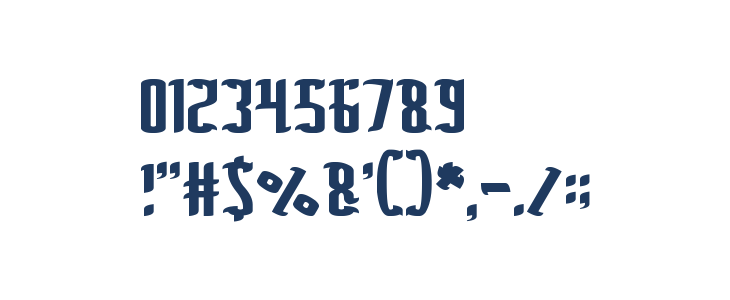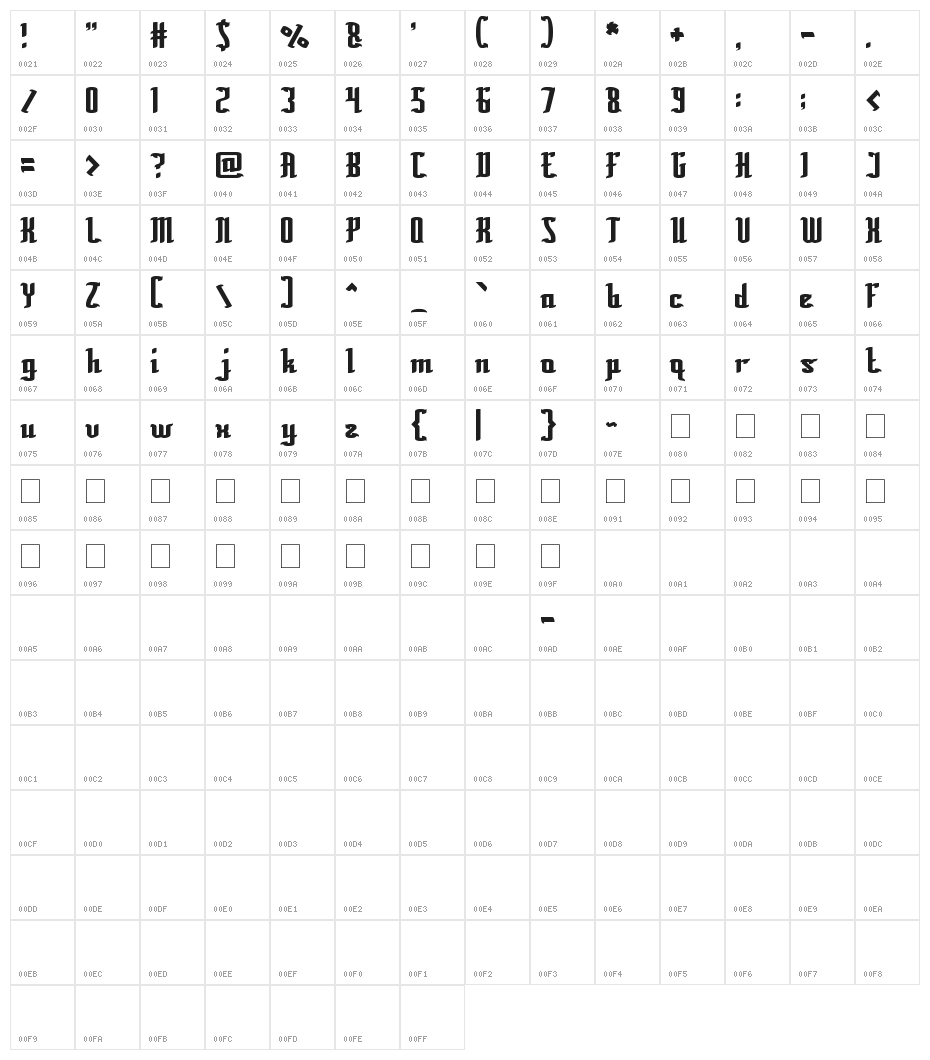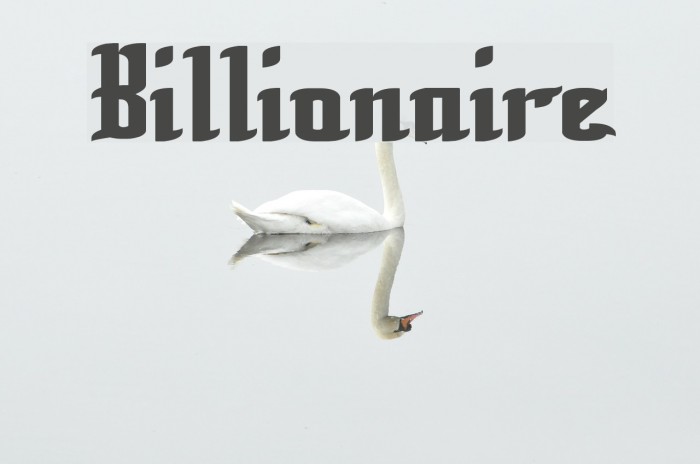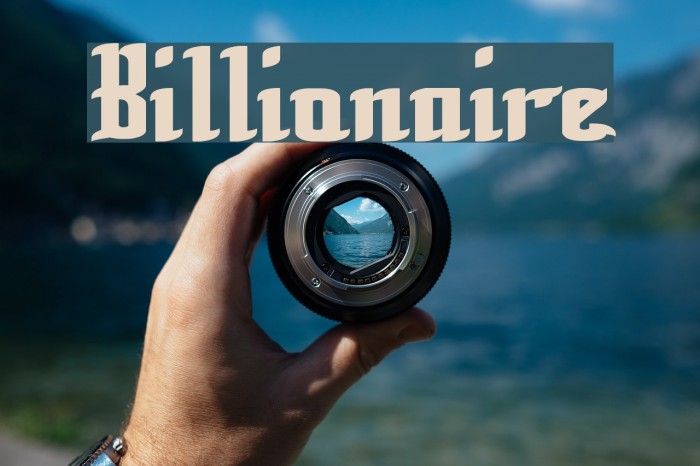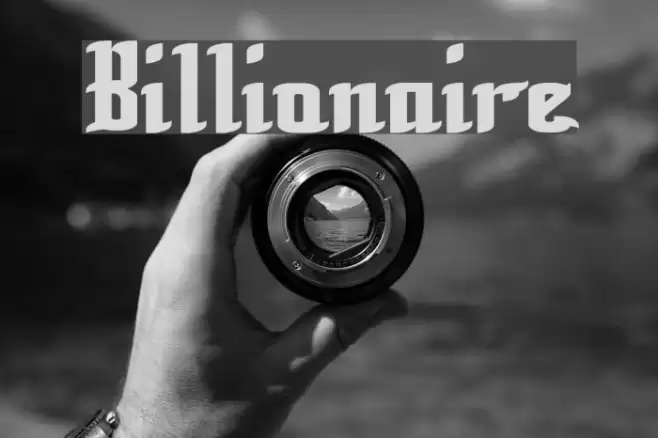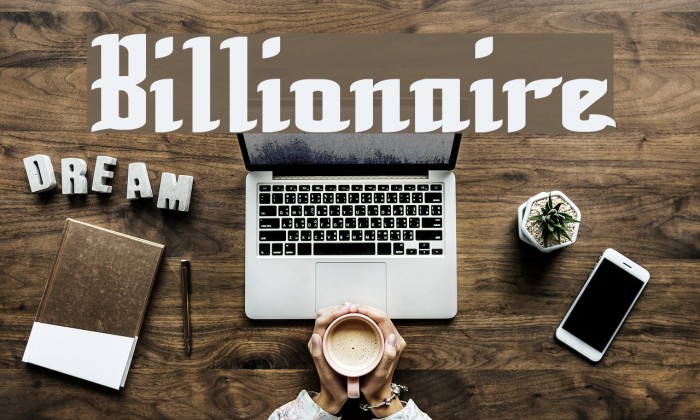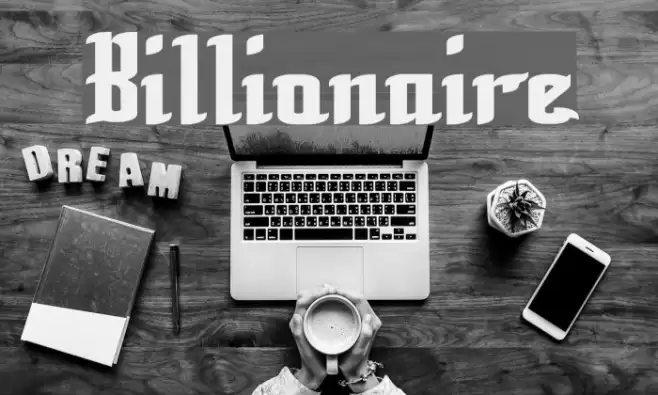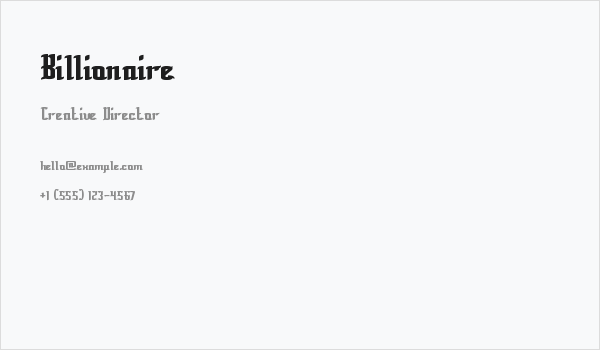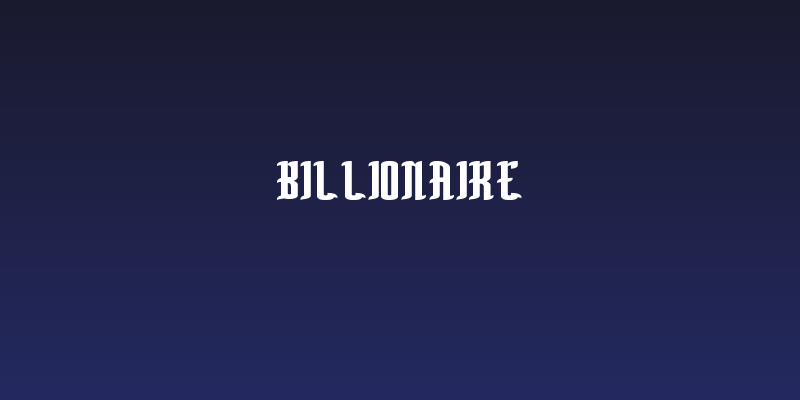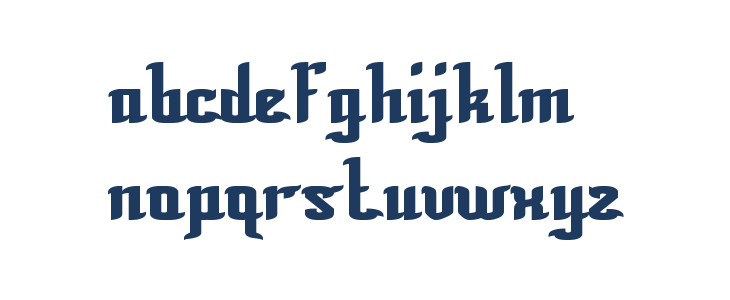
Billionaire Font
Billionaire Description
This font features a bold and striking blackletter style, characterized by its dramatic and angular strokes. The uppercase letters are particularly ornate, with sharp edges and a strong presence. The lowercase letters maintain the same boldness, offering a consistent and cohesive look. Numbers and special characters are designed to match the overall aesthetic, making them suitable for a variety of uses. The font's design is reminiscent of traditional Gothic scripts, yet it has a modern twist that makes it versatile for contemporary projects.
| Proposed Projects | Ideal for branding, posters, album covers, and any project requiring a bold, historical aesthetic. |